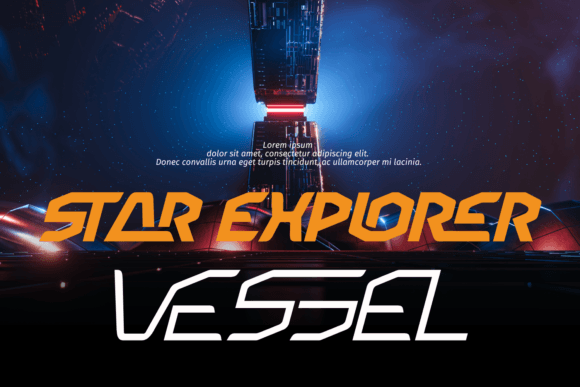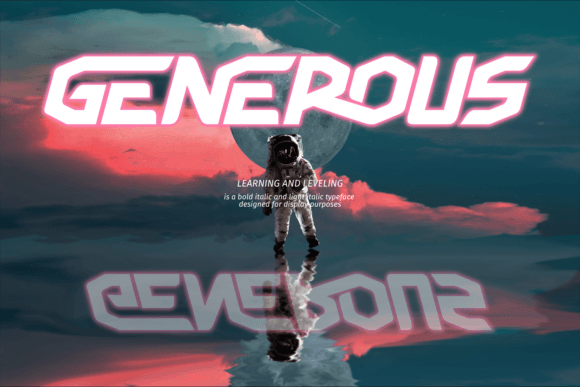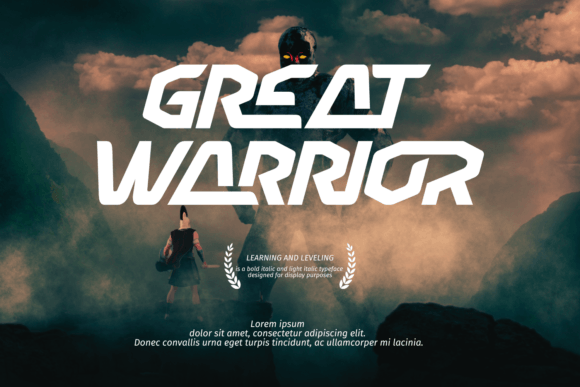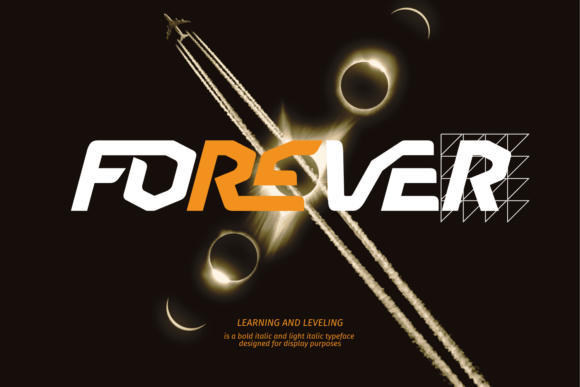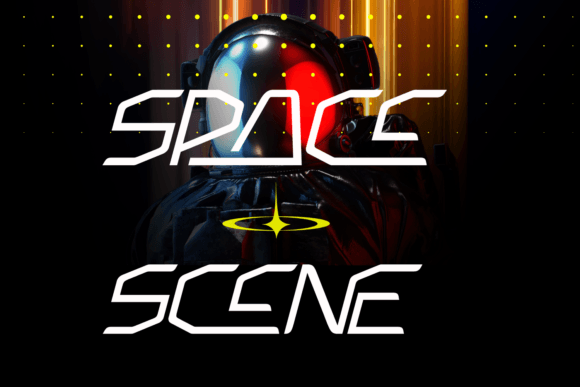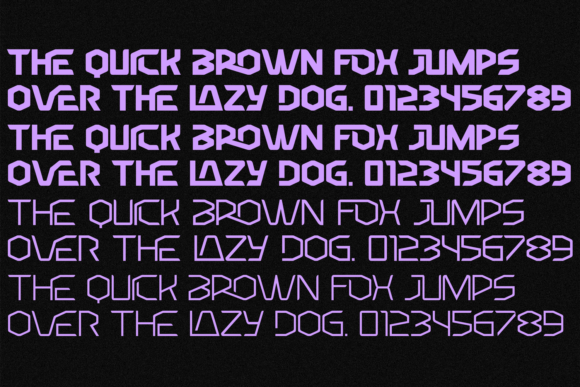
Introduction to Learning and Leveling Font
Learning and Leveling Font is A Modern Futuristic Techno Font, Cubic Sport Font With Unique Shape.
Designed for maximum impact, It’s features straight upright and wide italic letters, modern letter cutouts, and a dynamic slant that exudes power and speed Ideal for fast car racing sports titles, running matches, cycling, automotive game logos and monograms or other modern dynamic text.
Key Features of Learning and Leveling Font